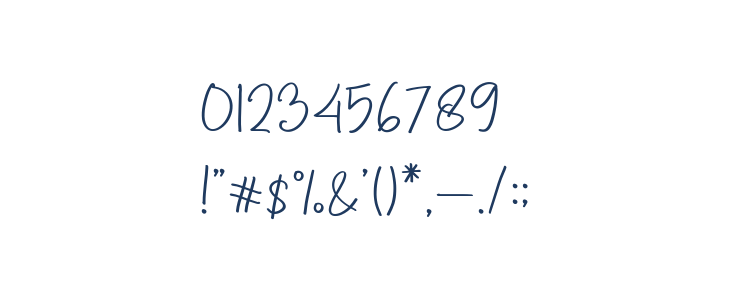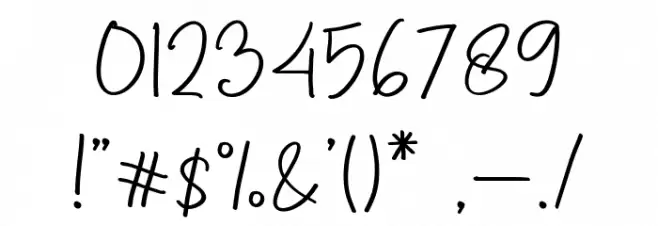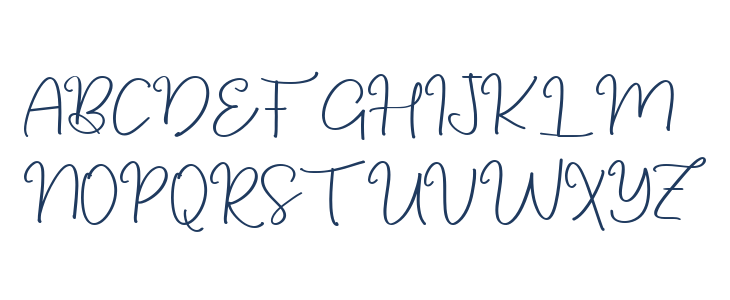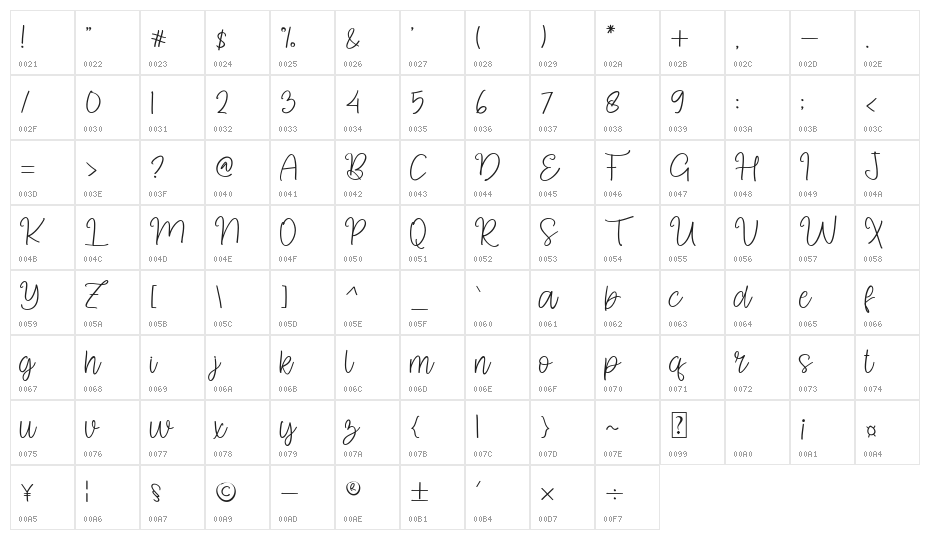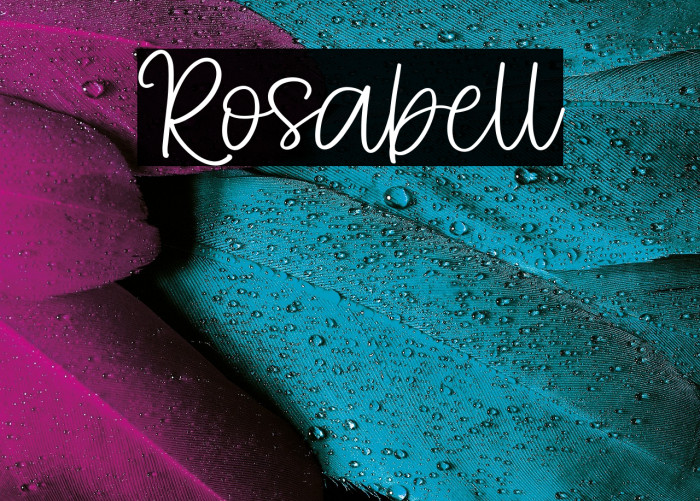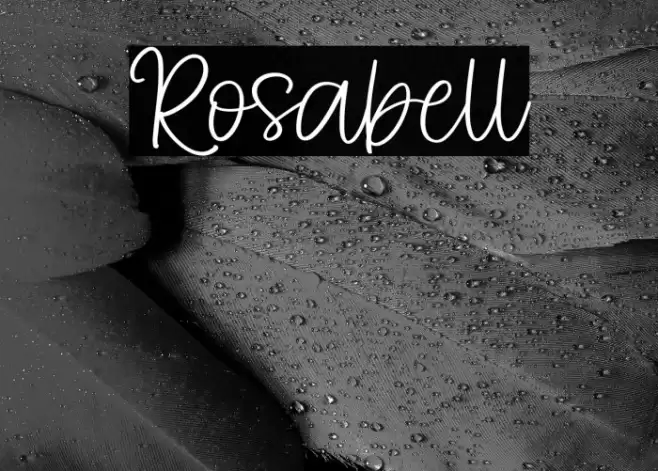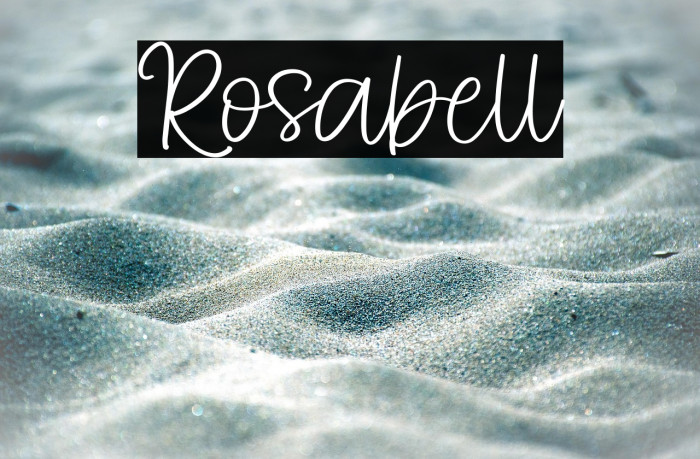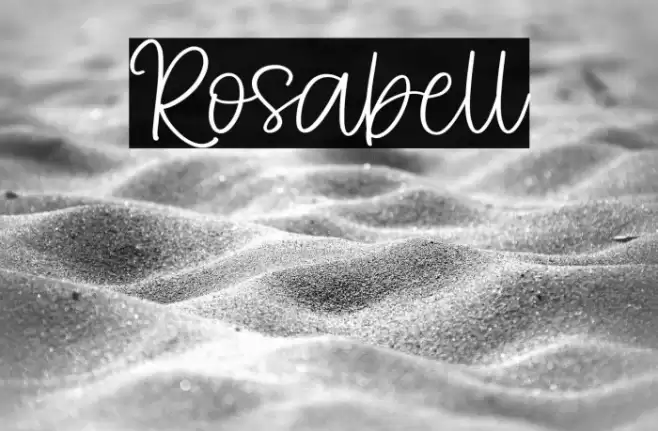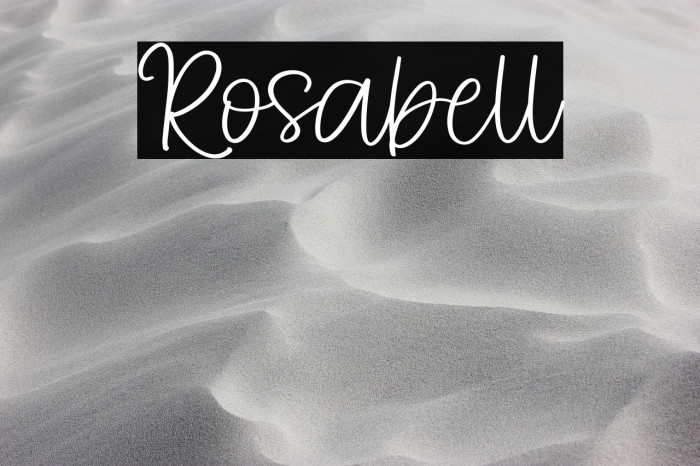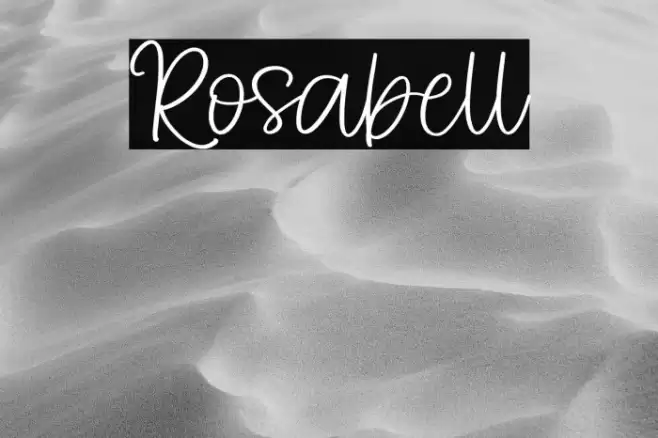
Rosabell Font
Rosabell Description
A playful, flowing handwritten script with tall, narrow letterforms and smooth, continuous strokes. The characters feature rounded terminals and a casual, friendly appearance, with consistent line thickness and generous spacing.
| Width | Condensed |
| Overall Style | Casual, Playful, Handwritten |
| Use Case | Logos, Headlines, Invitations, Greeting cards |
| Proposed Projects | Greeting cards, invitations, branding, social media graphics, quotes, and personal notes. |